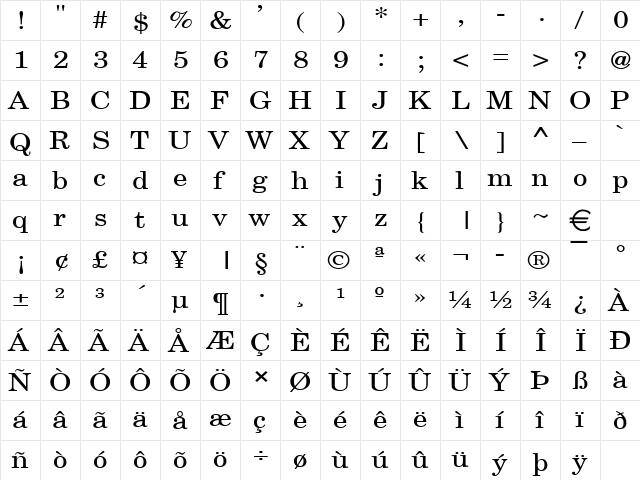
NewBostonWide Normal
Design Context for NewBostonWide Typeface
NewBostonWide takes a measured approach to typography — its balanced proportions and neutral character make it a reliable workhorse for both digital and print work.